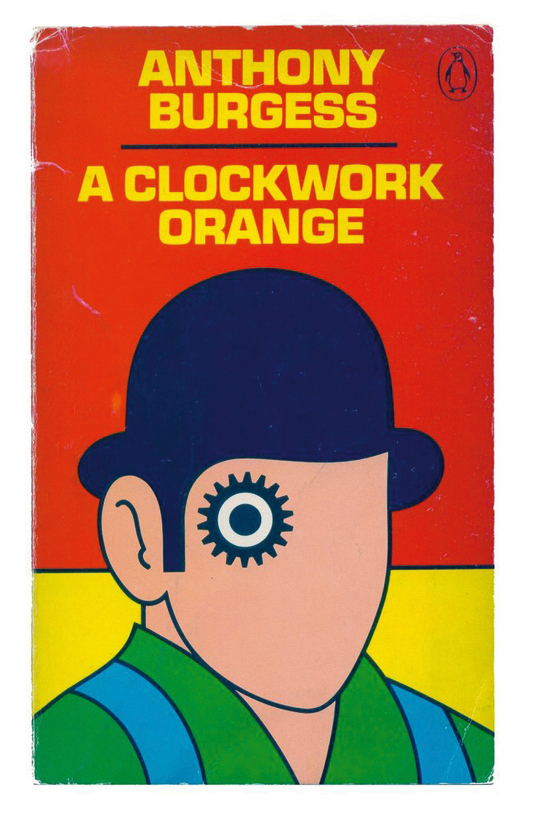
Greatest fonts countdown: 100 - Eurostile
100. Eurostile
- Adlo Novarese, 1962
This may be a controversial start to list, but Eurostile is in here for its sheer ubiquity. Yes it's a little baggy and often hard to set, but it is – or was at least – everywhere. Designed by Italian type designer Adlo Novarese in 1962 for the Nebiolo foundry, the bold, modern nature of the typeface has made it a favourite in the world of science fiction movies (2001: A Space Odyssey being a good example).
Eurostile has also featured in consumer electronics, album covers from artists including The Police, U2, and Eminem, and on the cover of 'A Clockwork Orange', with artwork by David Pelham, as seen here.